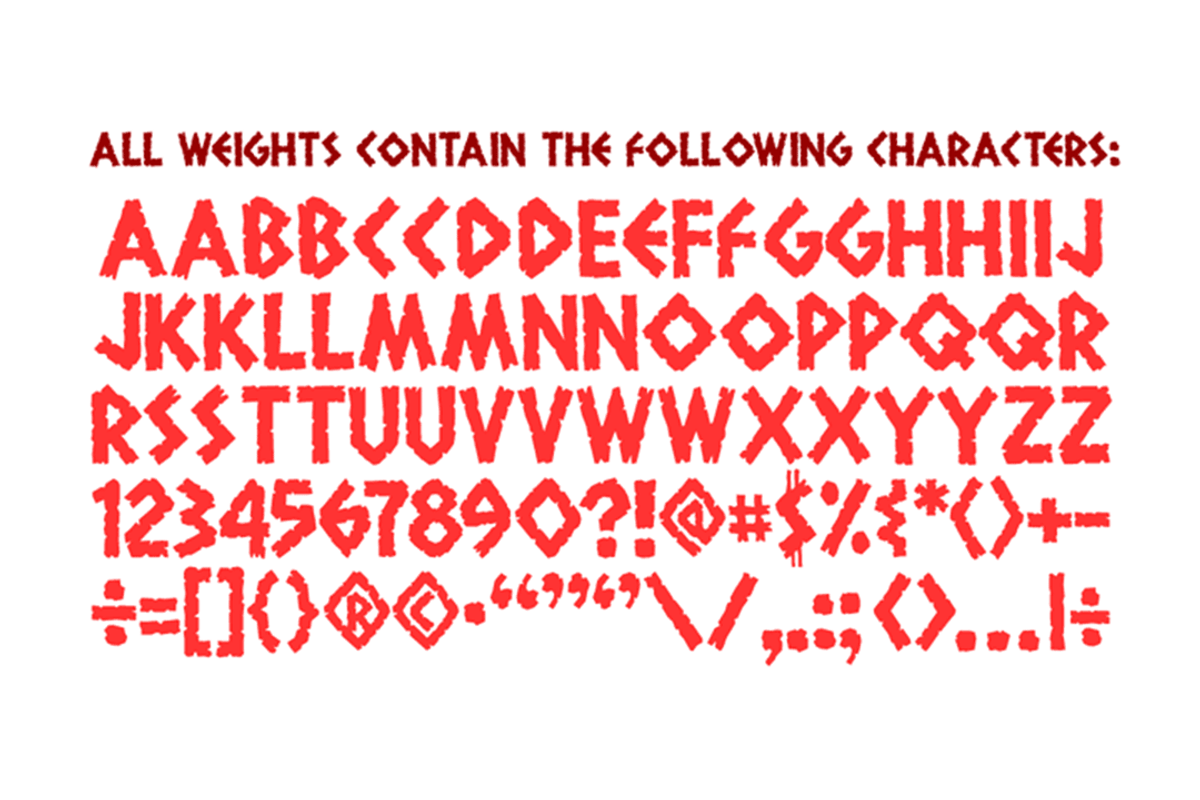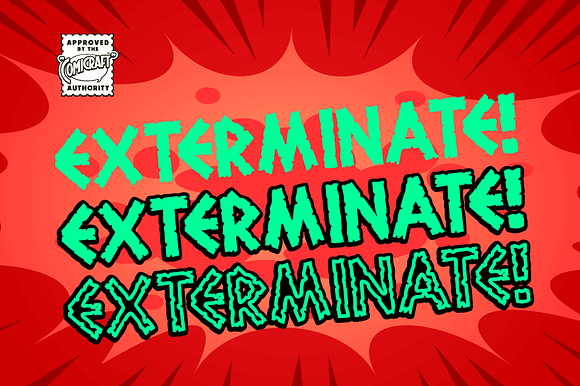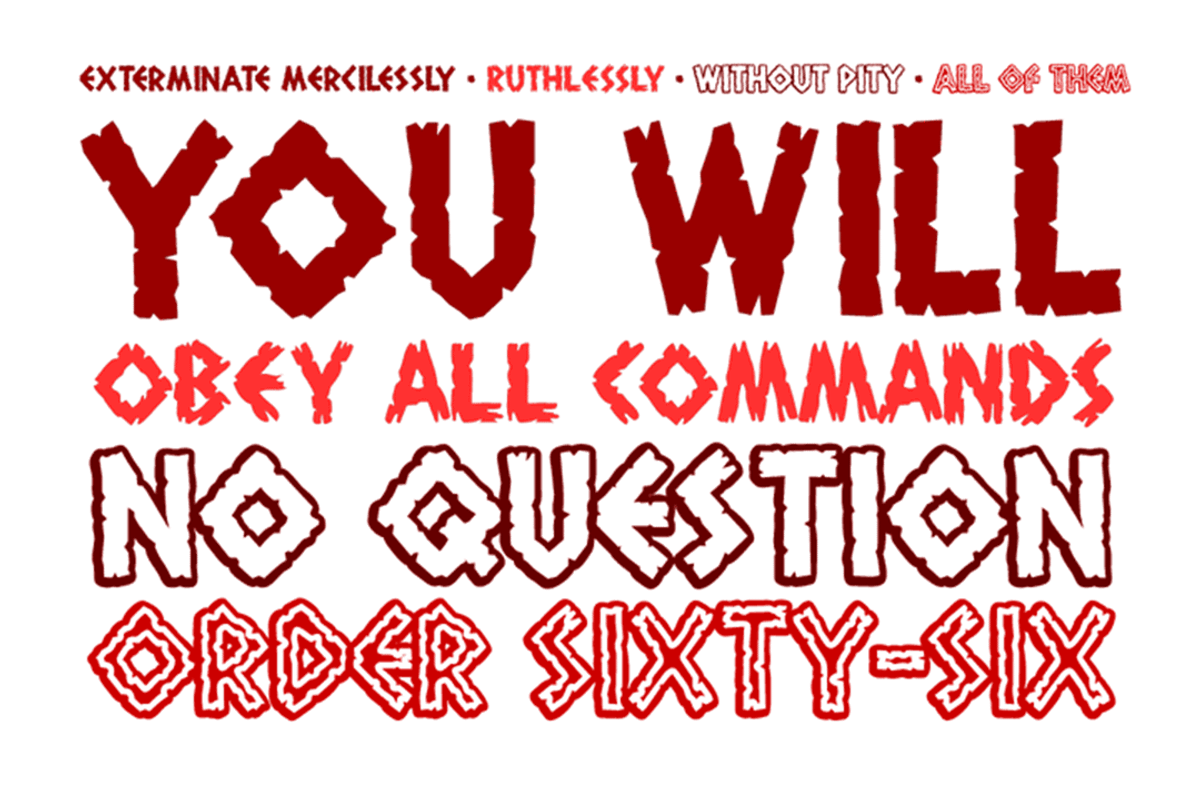
Exterminate
THIS FONT IS ONLY THE BEGINNING...
WE WILL PREPARE MORE. WE WILL GROW STRONGER. WHEN THE TIME IS RIGHT WE WILL EMERGE AND TAKE OUR RIGHTFUL PLACE AS THE SUPREME FONT HOUSE IN THE UNIVERSE! YOU WILL OBEY ALL OUR COMMANDS! YOU WILL OBEY INSTANTLY! YOU WILL OBEY WITHOUT QUESTION! OBEY! OBEY! YOU WILL BUY THIS FONT OR YOU WILL BE EXTERMINATED! EXTERMINATE! EXTERMINATE!
Why Exterminate is worth a look
Exterminate by Comicraft Fonts fits naturally into Branding, posters, packaging, typography.